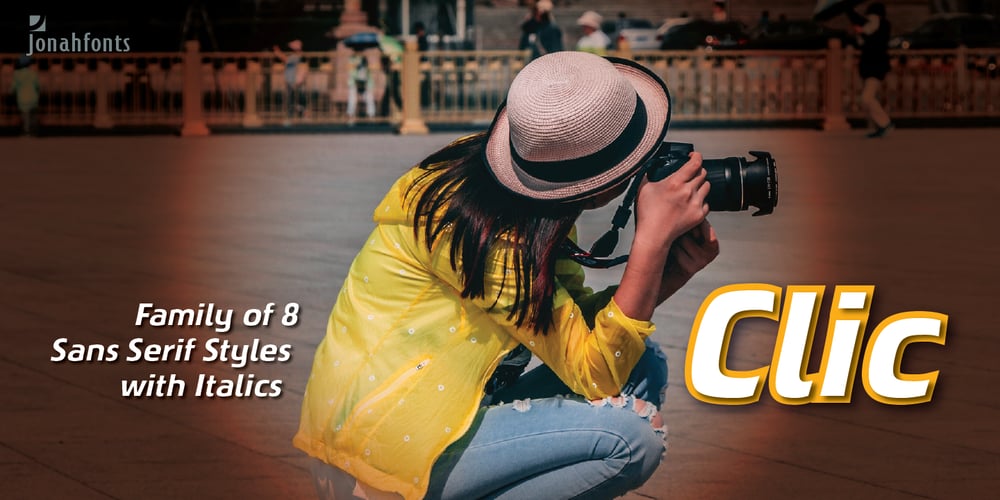
Clic Font Family was designed by John Nahmias and published by Jonahfonts. Clic contains 8 styles and family package options. Clic is an upgrade with new alternates and improved kerning with an added styles ’Thin and Thin Italic’.Applications include Headlines, logos, ads, captions, packaging, bulletins, posters, and greeting cards as well as short texts.